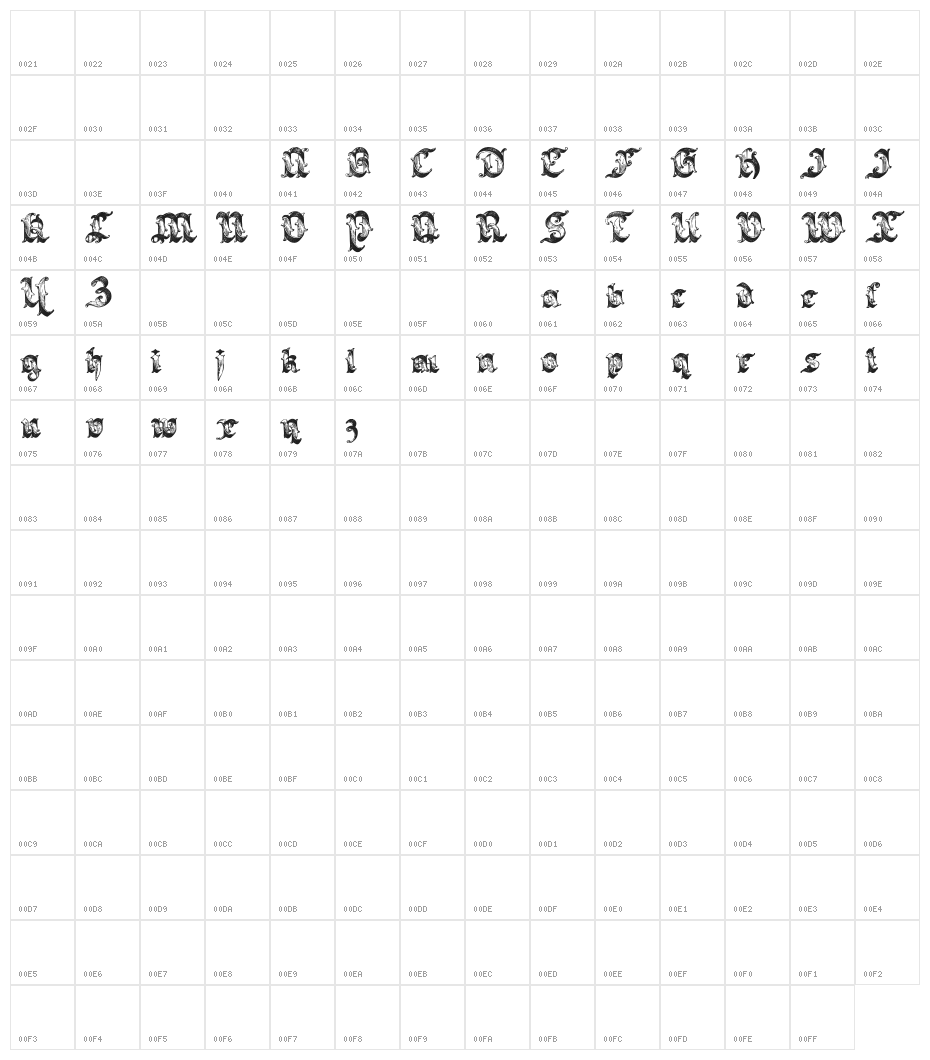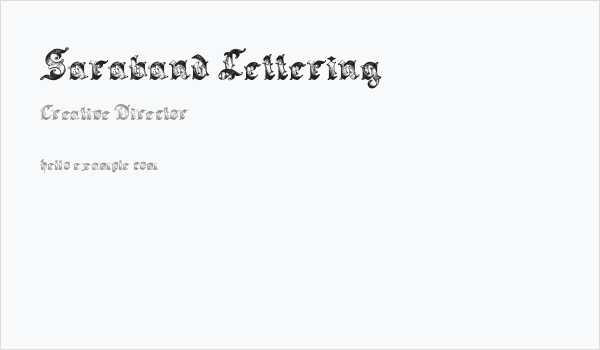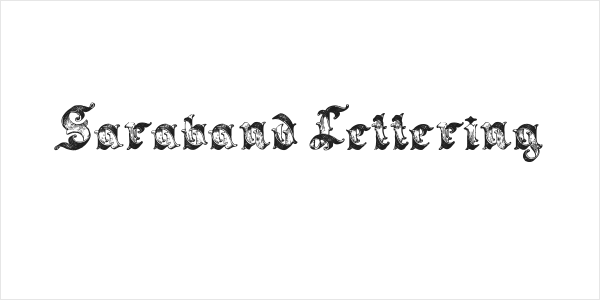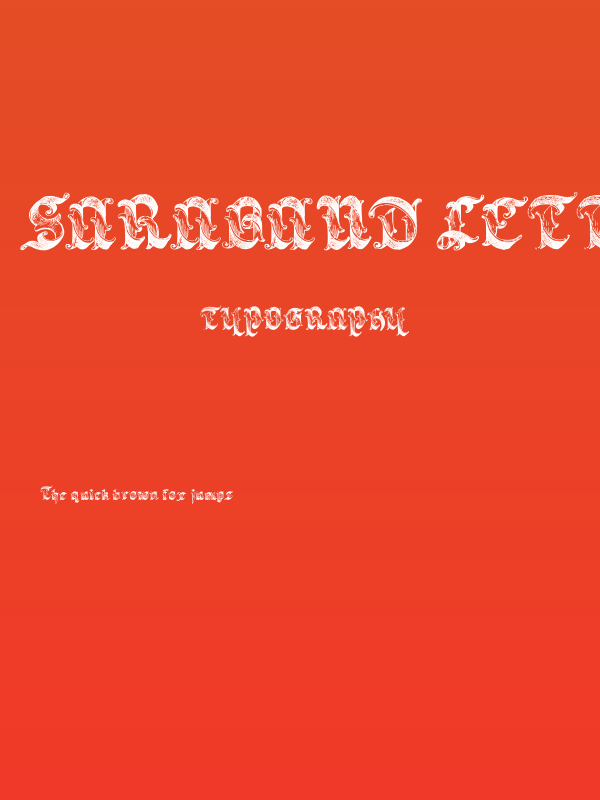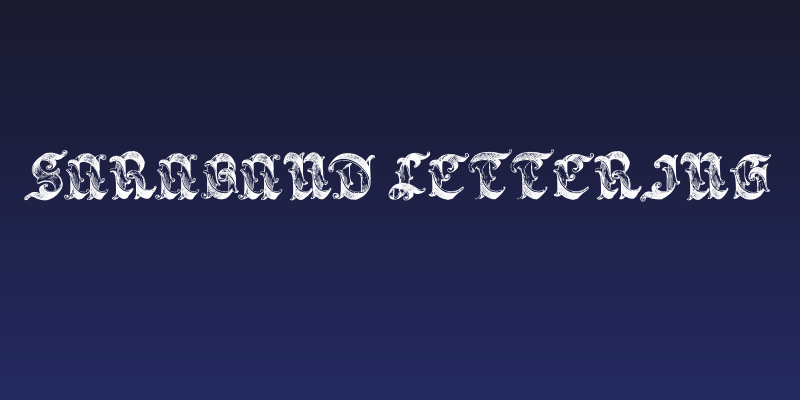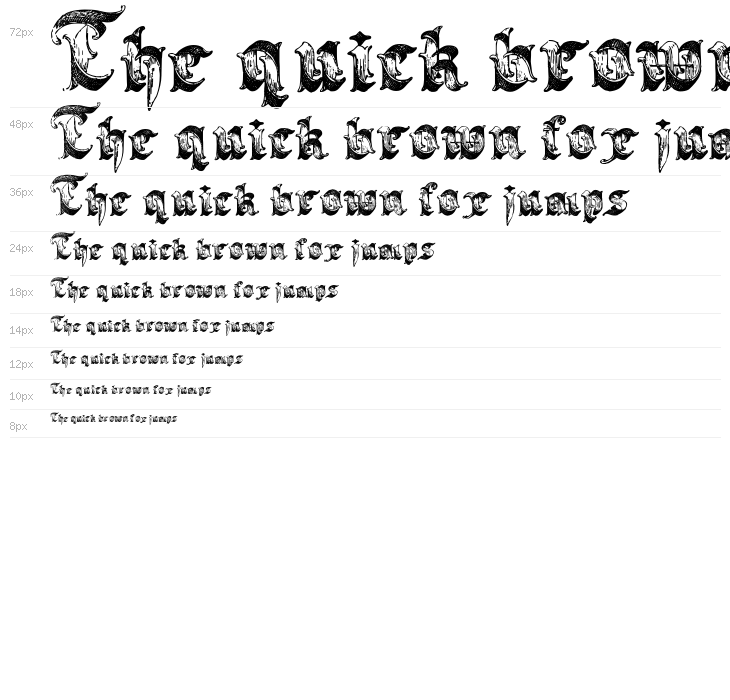
Saraband Lettering Font
Saraband Lettering Description
This font features an ornate and intricate design, reminiscent of traditional calligraphy with a gothic influence. Each character is adorned with elaborate flourishes and decorative elements, creating a sense of elegance and historical charm. The strokes are bold and pronounced, with a high contrast between thick and thin lines, adding to the dramatic appearance. The overall style is highly decorative, making it suitable for projects that require a touch of sophistication and artistry.
| Proposed Projects | Ideal for wedding invitations, historical themed events, book covers, and decorative signage. |